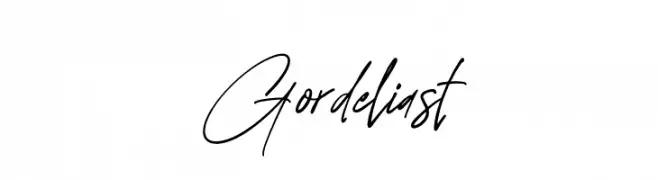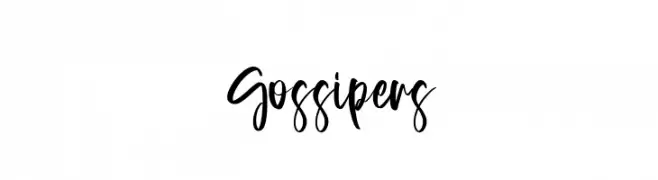
( Fonts by Peter Olexa )
A lively, cursive font with interconnected characters and a whimsical charm.
( Fonts by Peter Olexa )
A lively, cursive font with a playful, handwritten style.
( Fonts by Letterena Studios )
Elegant handwritten script font.
( Fonts by Pinisiart )
Playful handwritten font with rounded edges.
( Fonts by Maulana Creative )
A dynamic and fluid script font with elegant, flowing letterforms.
( Fonts by Aleksandar Stevanov )
A bold, dynamic script font with a handwritten style.
( Fonts by Hatf Type )
A lively, expressive handwritten font with dynamic strokes and a playful style.